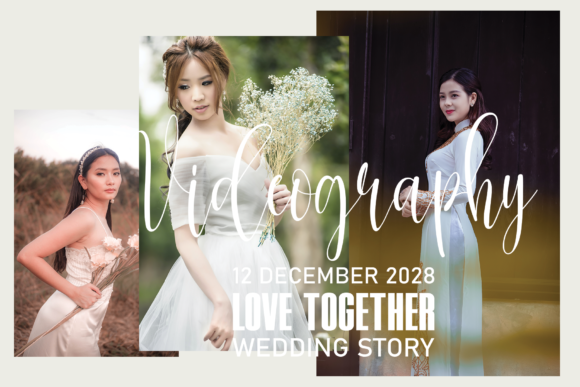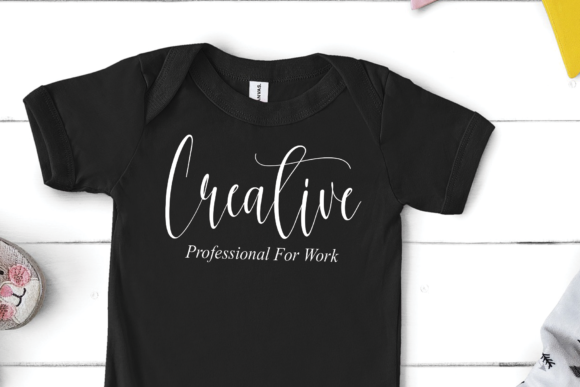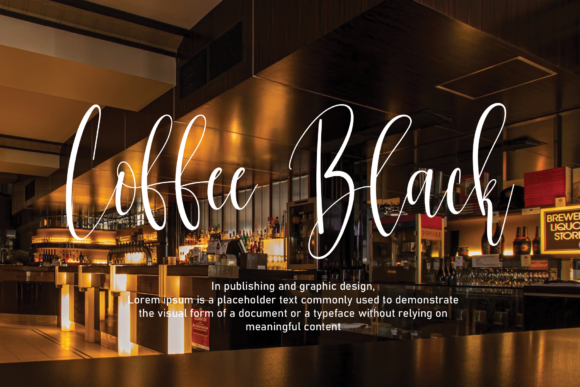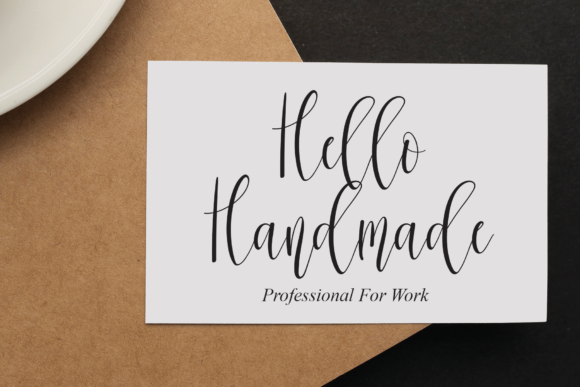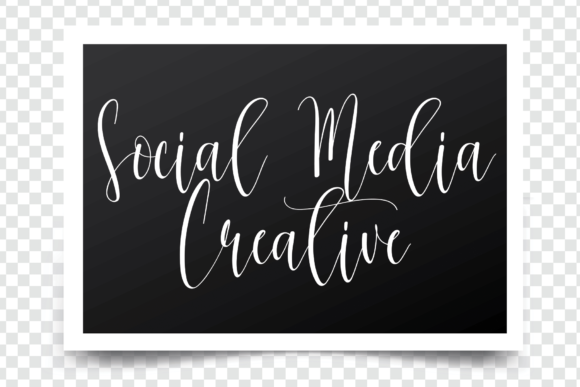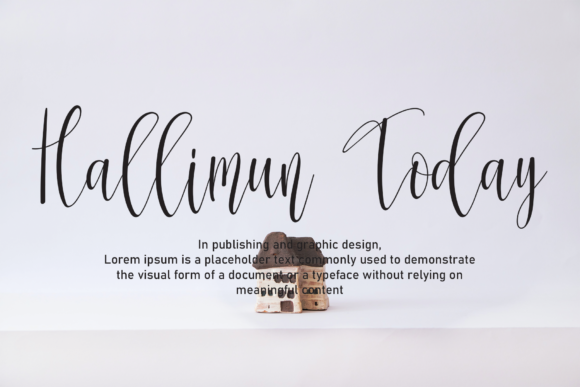
Discover the Elegance of English Font: Elevate Your Designs with Style
Are you on the hunt for a font that exudes elegance, sophistication, and style? Look no further than the English Font, a beautiful, well-balanced, and stylish script font that is sure to take your designs to the next level. With its smooth curves and refined aesthetic, English Font is the perfect choice for fashion branding, editorial designs, and any project that demands a touch of luxury.
The Characteristics of English Font
English Font is a script font that boasts a unique blend of classic and modern elements. Its smooth curves and flowing lines create a sense of movement and fluidity, making it perfect for designs that require a touch of dynamism. The font is characterized by:
- Smooth Curves: English Font features smooth, flowing curves that give it a sense of elegance and sophistication.
- Well-Balanced: The font is carefully crafted to ensure that each letter is well-balanced and proportioned, creating a harmonious and refined aesthetic.
- Stylish: English Font is a stylish script font that adds a touch of luxury to any design.
Perfect for Fashion Branding and Editorial Designs
English Font is particularly well-suited for fashion branding and editorial designs, where style and sophistication are paramount. Whether you’re designing a logo, brochure, or fashion magazine, English Font is sure to make a lasting impression. Its elegant curves and refined aesthetic make it perfect for:
- Fashion Logos: Create a stunning logo for your fashion brand that exudes style and sophistication.
- Editorial Designs: Add a touch of elegance to your editorial designs, including magazines, brochures, and catalogues.
- Packaging: Use English Font to create beautiful packaging designs that stand out on store shelves.
Why Choose English Font?
With so many fonts to choose from, why should you choose English Font for your next project? Here are just a few reasons:
- Unique Aesthetic: English Font offers a unique and distinctive aesthetic that sets it apart from other fonts.
- Elegant and Sophisticated: The font exudes elegance and sophistication, making it perfect for high-end designs.
- Versatile: English Font is versatile and can be used for a wide range of design projects, from fashion branding to editorial designs.
Tips for Using English Font
To get the most out of English Font, here are a few tips to keep in mind:
- Use it Sparingly: English Font is a statement font, so use it sparingly to make a maximum impact.
- Pair it with Other Fonts: Experiment with pairing English Font with other fonts to create a unique and interesting aesthetic.
- Adjust the Size: Adjust the size of English Font to create visual interest and hierarchy in your design.
In conclusion, English Font is a beautiful, well-balanced, and stylish script font that is perfect for fashion branding, editorial designs, and any project that demands a touch of luxury. With its smooth curves and refined aesthetic, English Font is sure to elevate your designs and leave a lasting impression. So why wait? Add English Font to your projects today and experience the power of elegant typography.